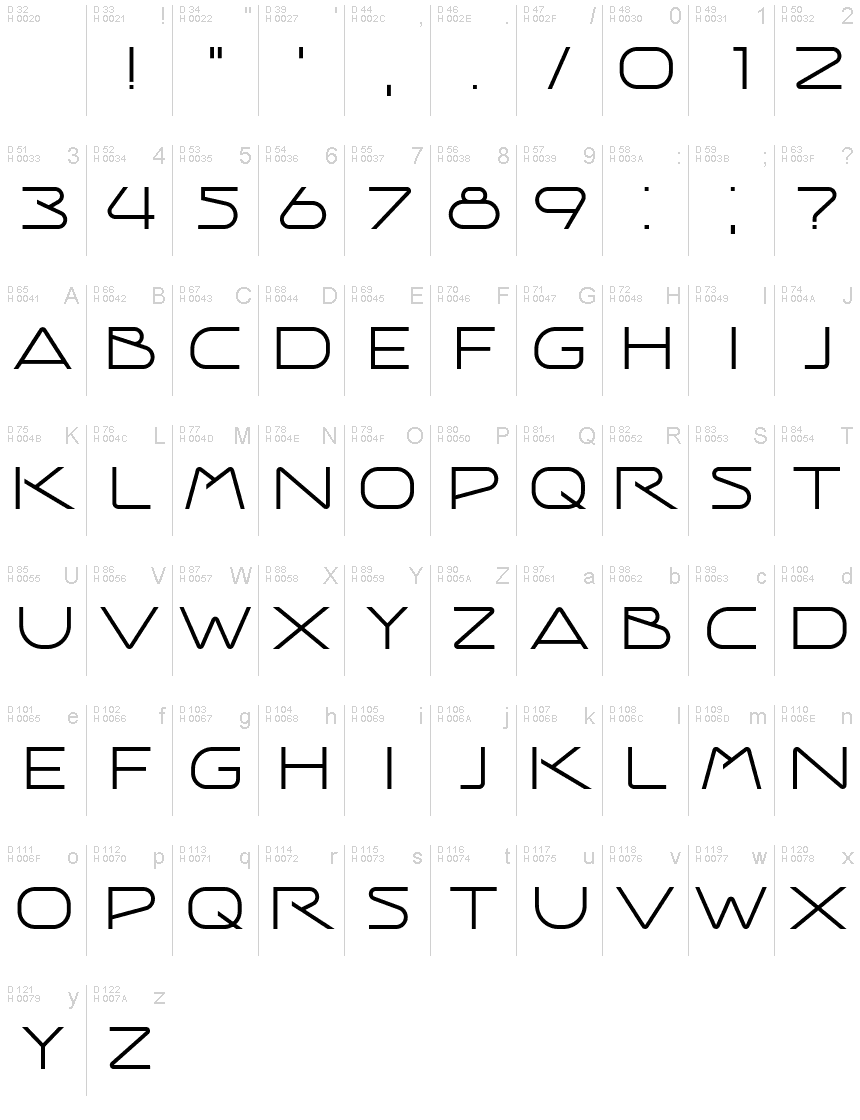
Balsam Regular
Balsam, a masterpiece crafted by Vladimir Nikolic, stands out as a distinct addition to the sans serif family. With its semi-light weight and extra-expanded width, Balsam exudes a spacious yet assertive presence that commands attention. Its clean lines and modern proportions make it an excellent choice for designers seeking to infuse their projects with clarity and contemporary flair.
The aesthetic appeal of Balsam lies in its balance between approachability and sophistication. The font's generous spacing allows for high readability, which is essential for both print and digital media. Whether it's the centerpiece of a bold logo or the understated voice of body text, Balsam offers versatility without sacrificing style.
Ideal for creative endeavors that require impact without overcrowding—such as minimalistic branding, elegant presentations, or airy website layouts—Balsam promises to lend your projects an air of modernity grounded in timeless design principles.